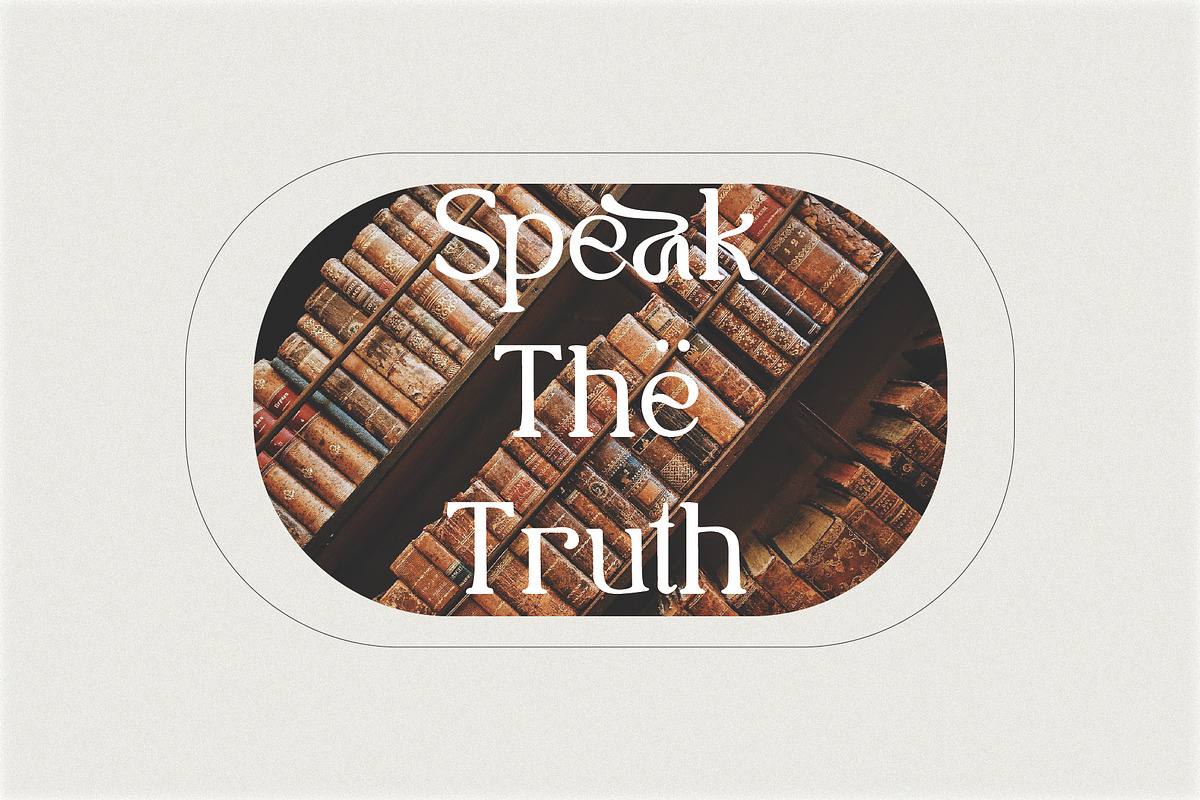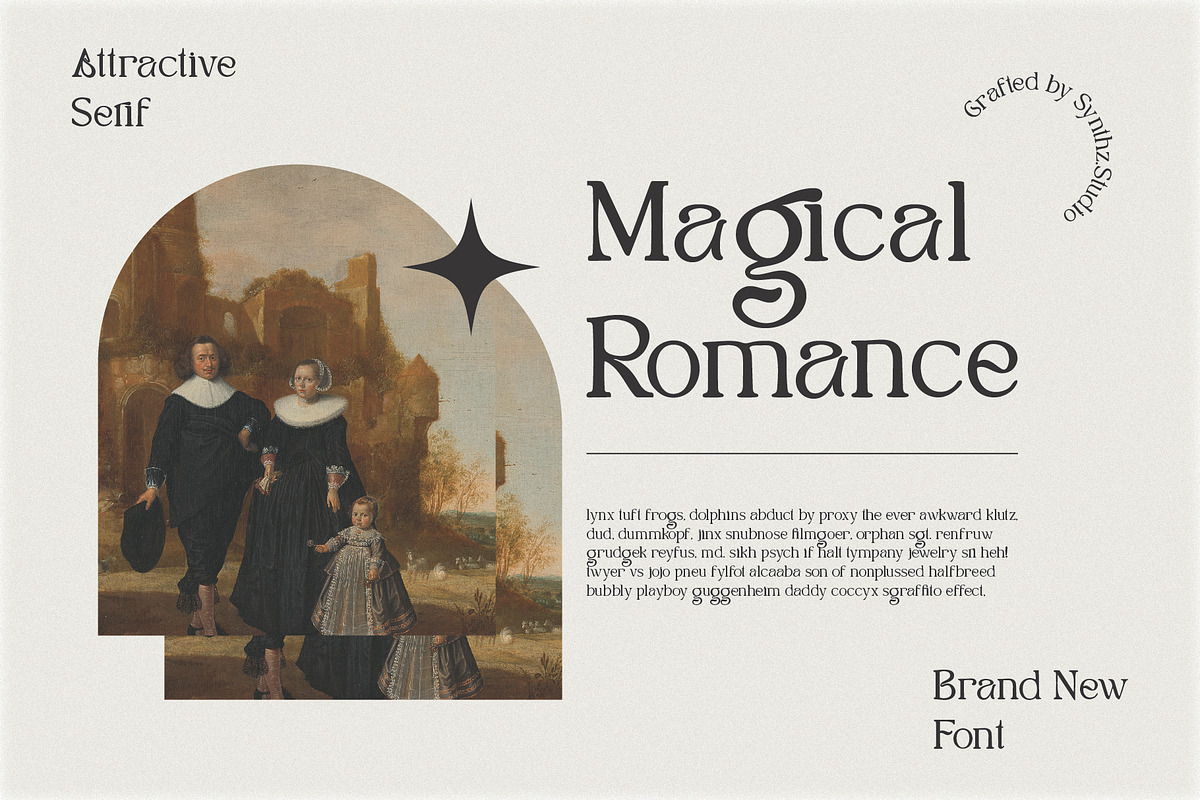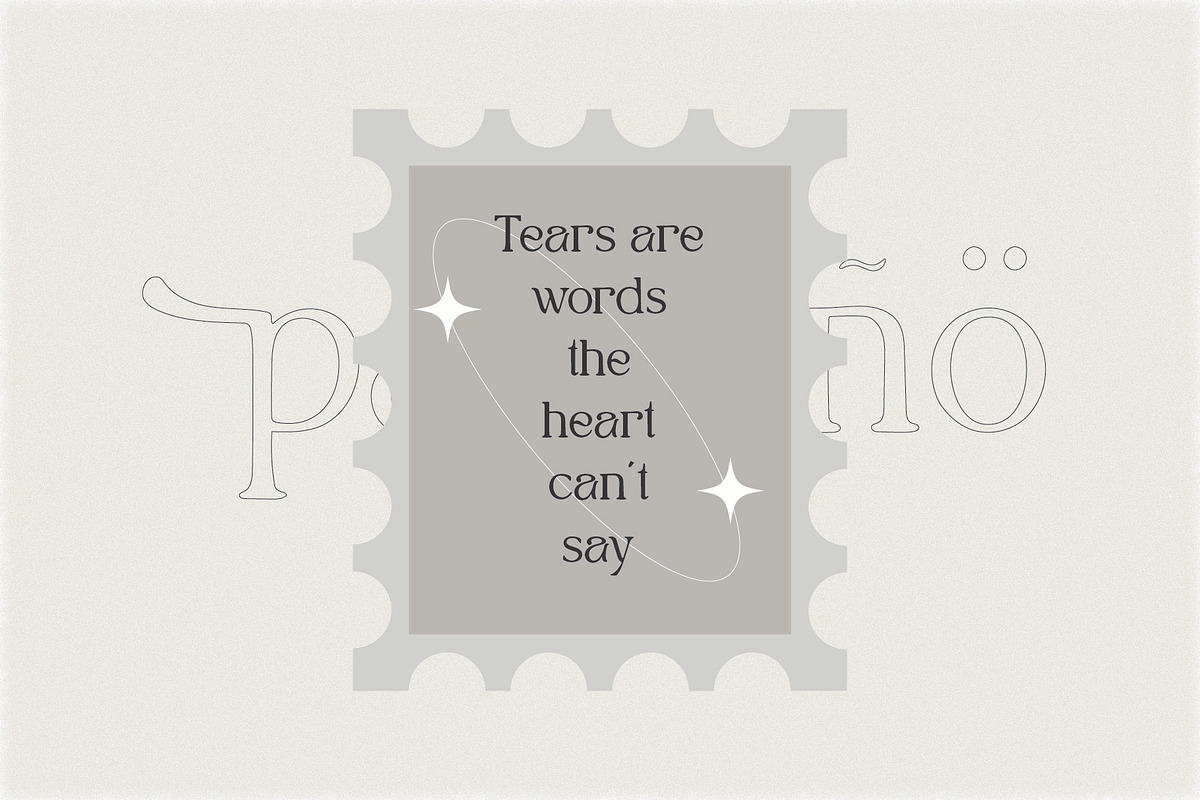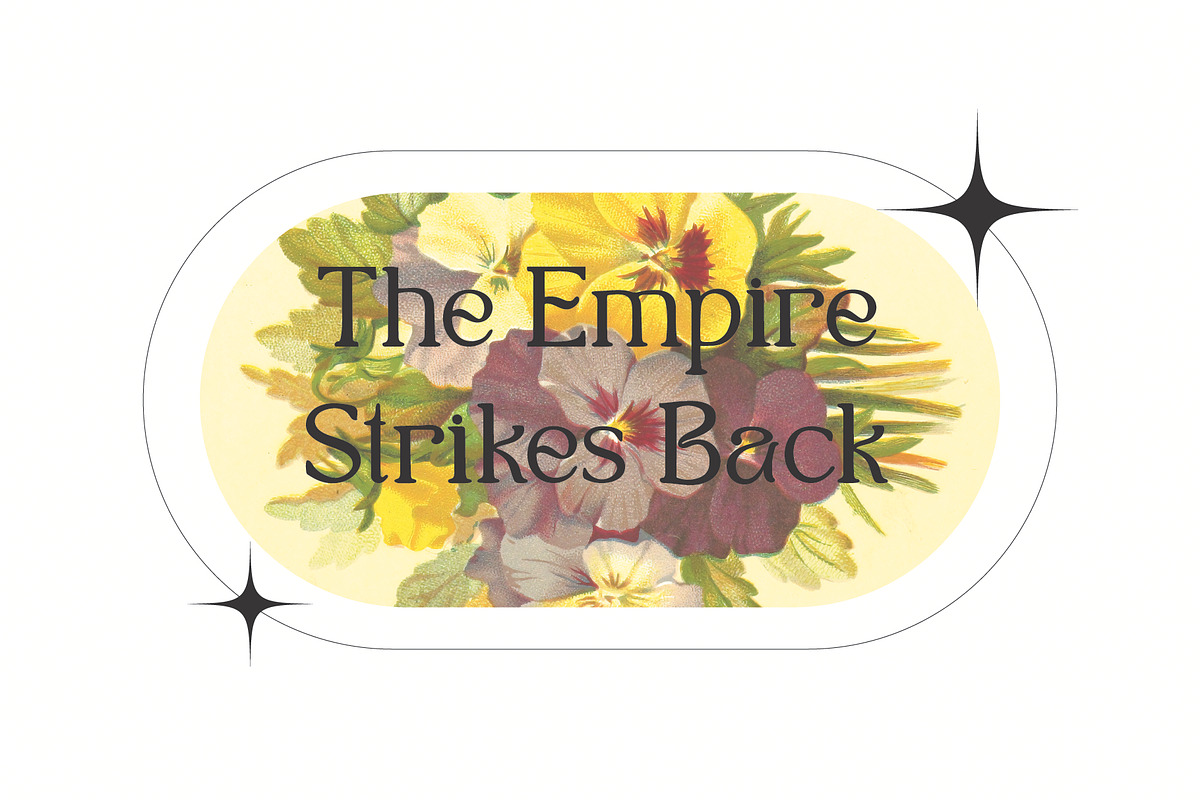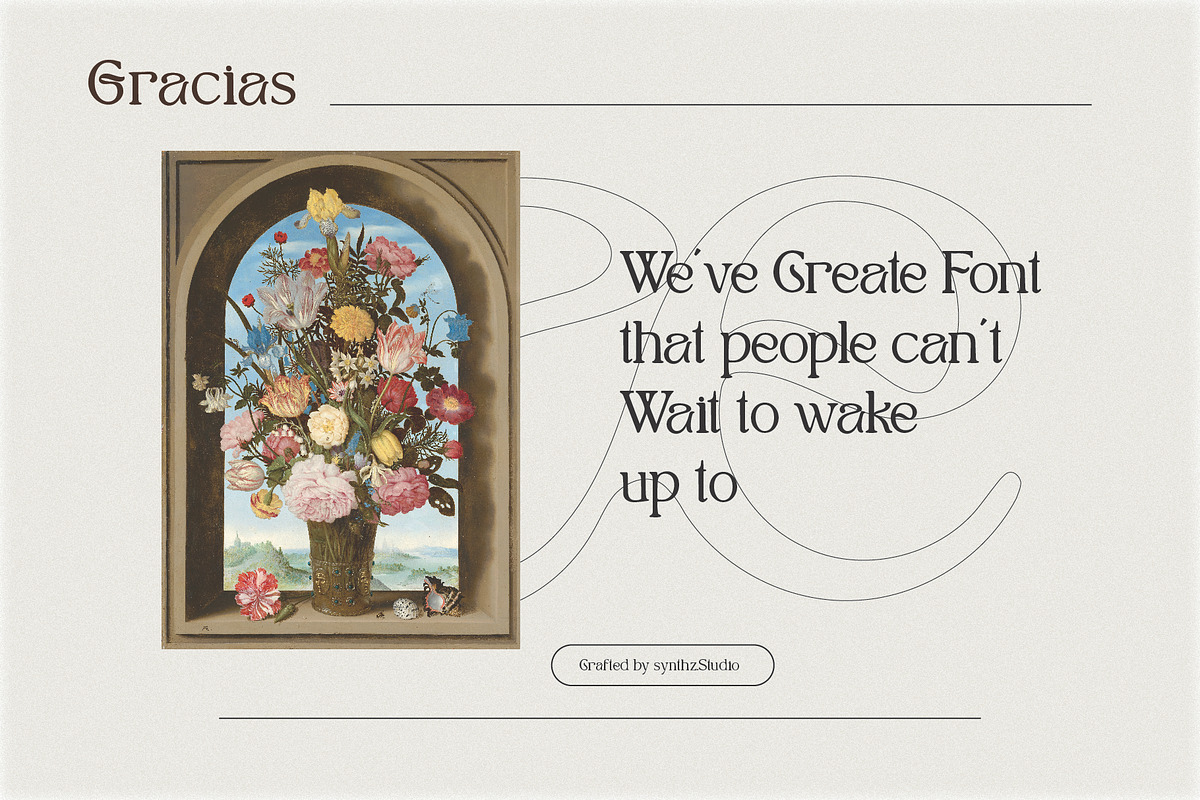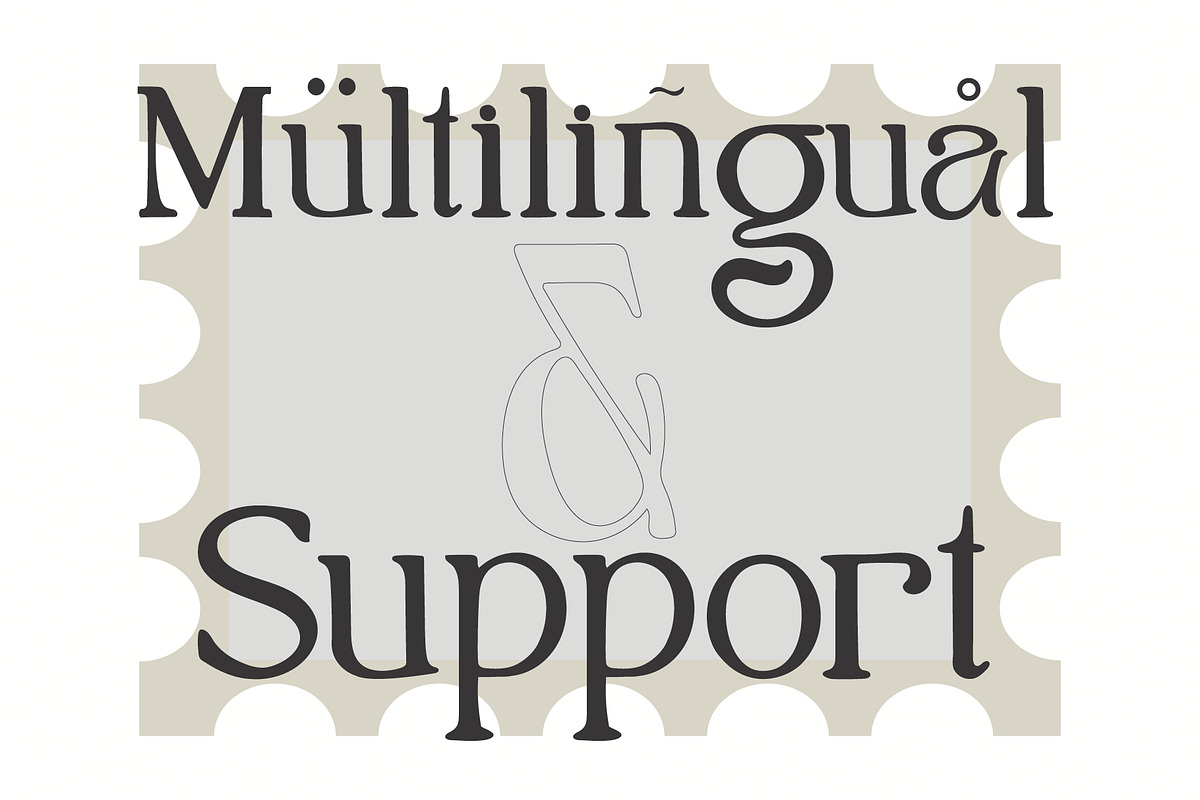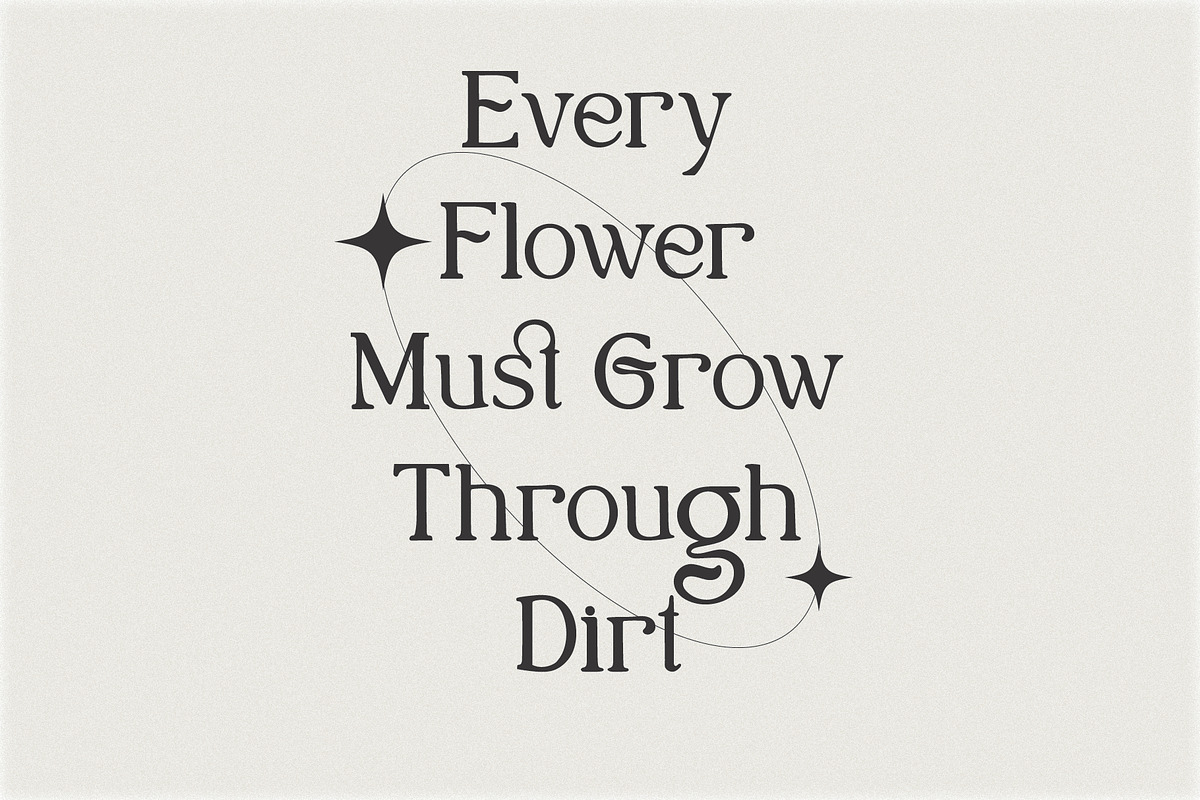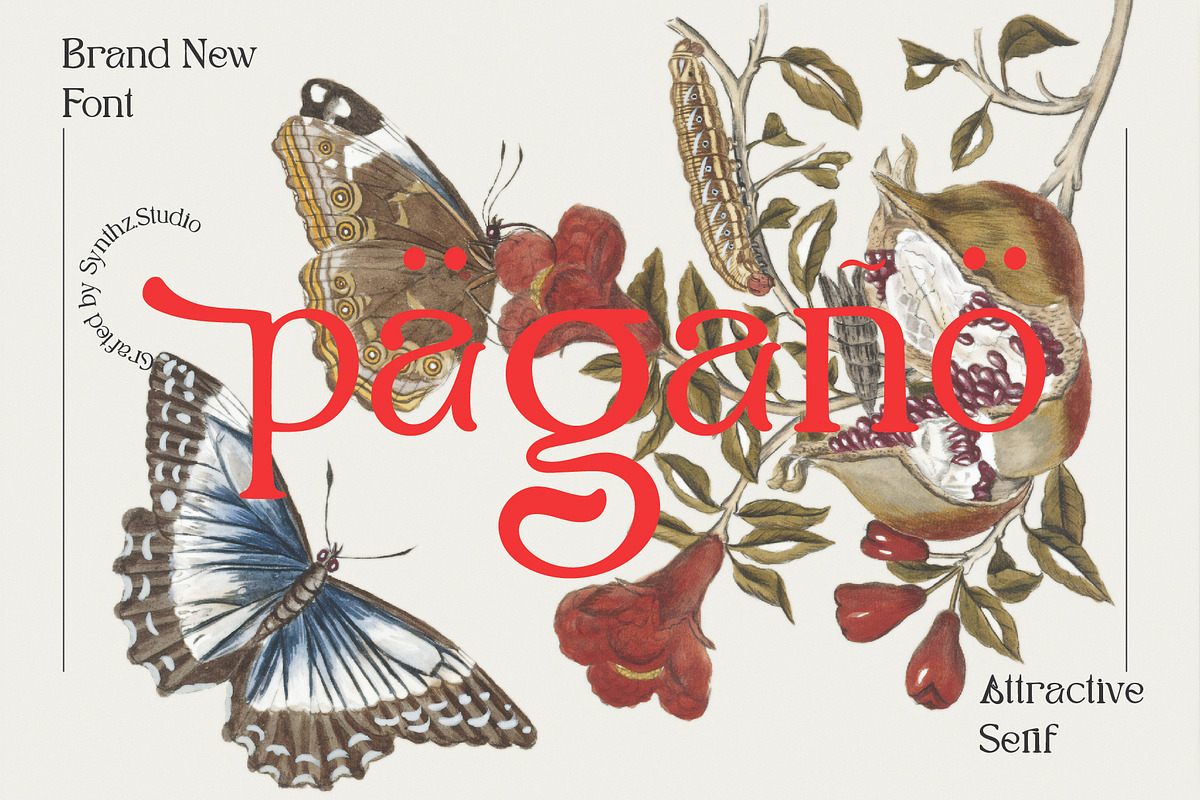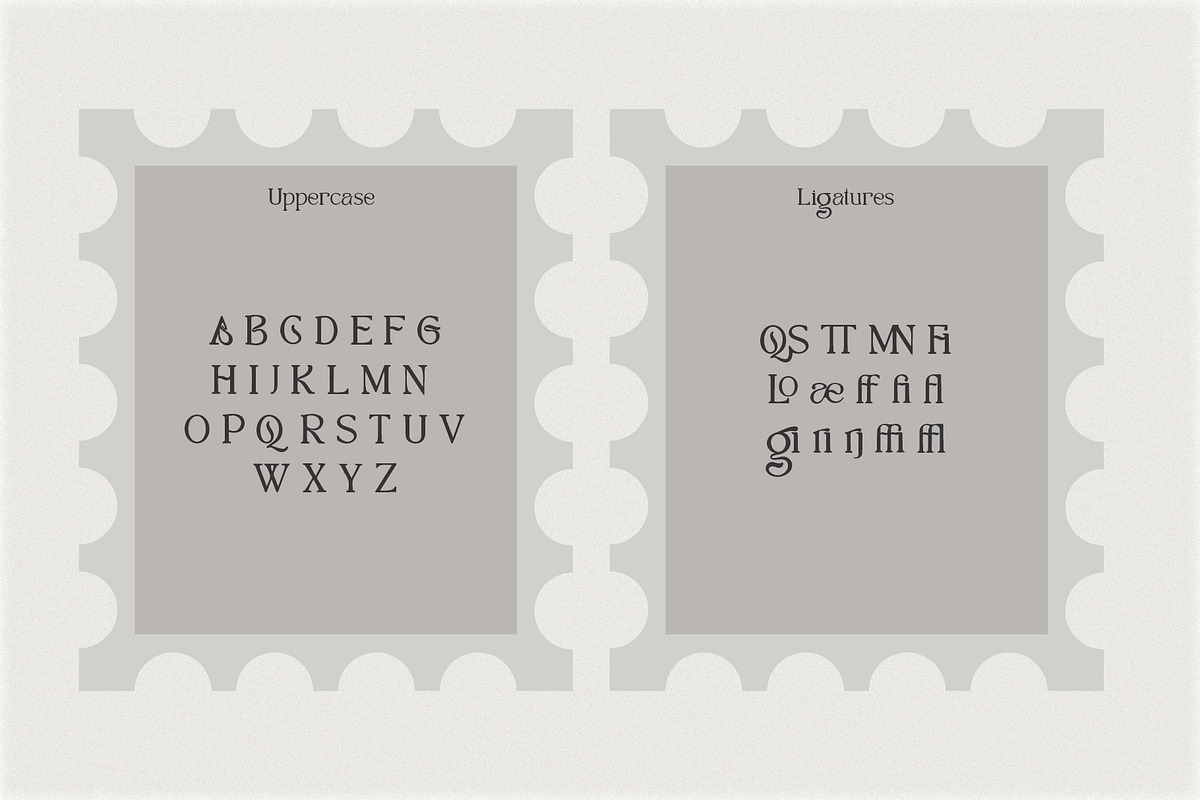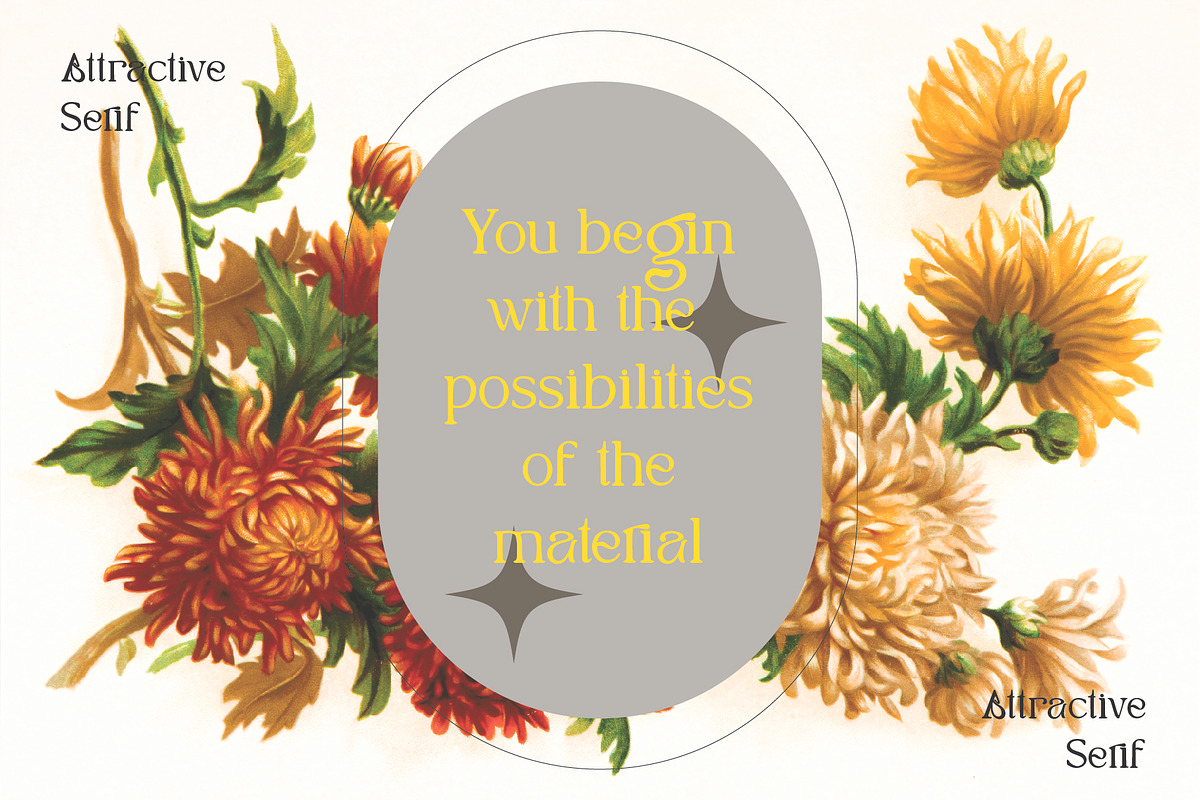
Pagano
Pagano is a lovely-looking serif font. It’s perfect for designing a logo and title for a magazine or product promotion, and it can be utilized in feature film productions from titles to assets.